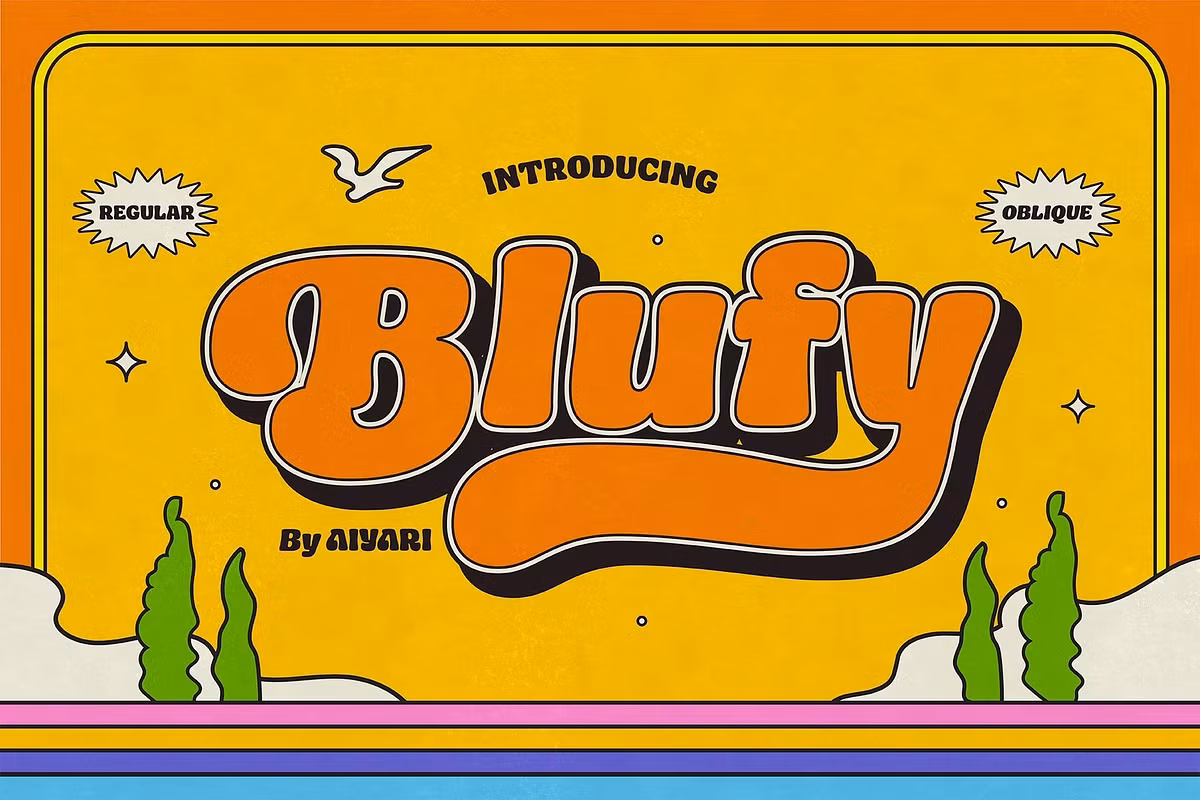
You must purchase this font for commercial use. However, you can download Blufy Font Family Free Download for testing purposes. Blufy is a modern and playful font family that combines clean geometry with friendly curves, making it a great choice for branding, kids’ products, creative packaging, websites, and eye-catching social media graphics. With its cheerful personality and smooth readability, Blufy adds a touch of fun and approachability to any design project.
The Blufy Font Family includes multiple weights and styles, allowing for dynamic typography pairings and versatile layouts. Whether you're creating a bold headline, a whimsical logo, or an inviting user interface, Blufy adapts with ease while maintaining a cohesive visual identity. The font's rounded edges and soft forms make it particularly well-suited for designs aimed at younger audiences or lifestyle brands seeking a fresh, modern vibe. Download Blufy Font Family Free Download today and see how this energetic typeface can elevate your creative work. Remember to purchase the appropriate license for commercial usage.